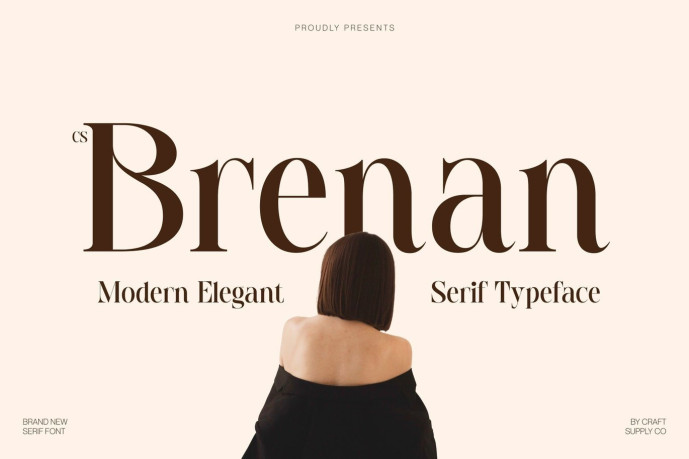
Brenan – Modern Serif Font
CS Brenan – Modern Elegant Serif Typeface: Where Refined Elegance Meets Timeless Sophistication Refined Letterforms with Graceful Proportions This is a modern elegant serif typeface designed with high-contrast strokes and beautifully refined letterforms. Its graceful proportions and carefully crafted serif details create a sophisticated visual rhythm that feels polished, luxurious, and effortlessly timeless. Every character is shaped to convey elegance while maintaining exceptional clarity and balance.
Contemporary Sophistication with Editorial Appeal This font embodies the refined aesthetics of premium editorial typography. The dramatic contrast between thick and thin strokes enhances its stylish personality, making it equally suitable for contemporary branding and elegant print design. Its clean structure delivers a perfect balance of beauty and professionalism.
Timeless Typography for Premium Visual Identities Designed to communicate prestige and refinement, that creates a distinctive visual identity that transcends trends. Its elegant construction makes every composition feel elevated, whether used for large headlines or sophisticated brand applications. The result is typography that is memorable, graceful, and undeniably luxurious.
Perfect for Invitations, Editorials, and Luxury Design Perfect for editorials, logos, invitations, campaigns, luxury packaging, magazine covers, beauty products, advertising, and sophisticated visual identities. Its high-contrast letterforms and refined serif character make it ideal for projects that seek to express elegance, exclusivity, and timeless style.
Uppercase and lowercase characters